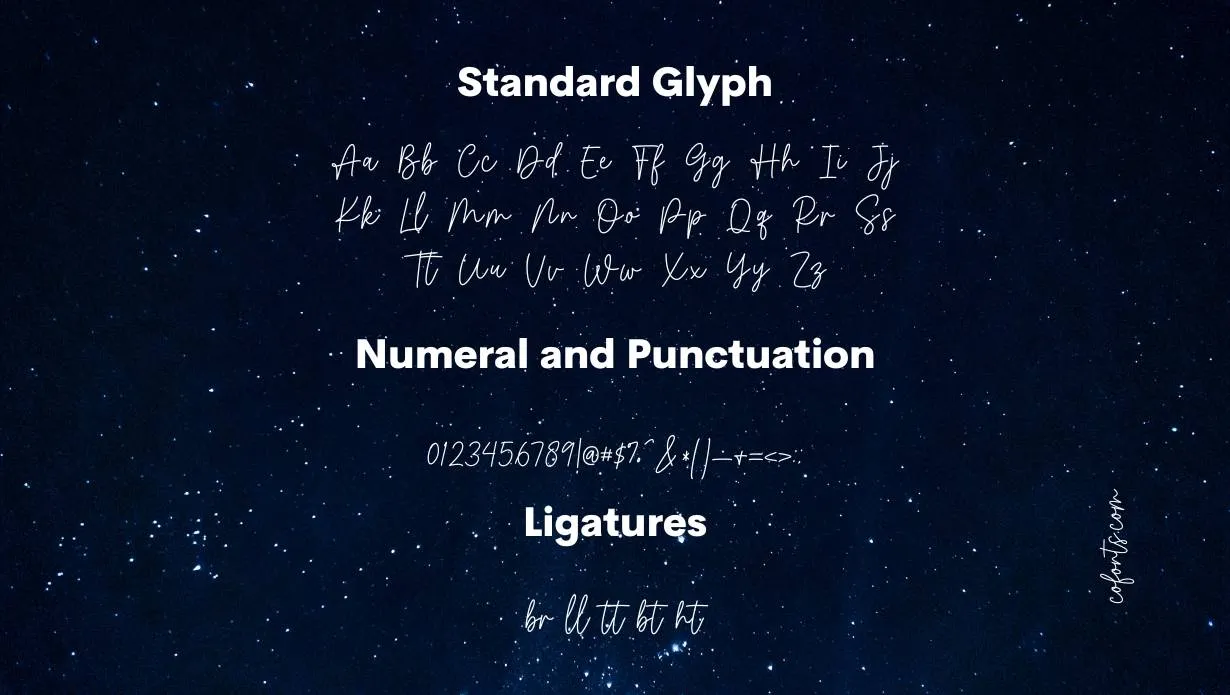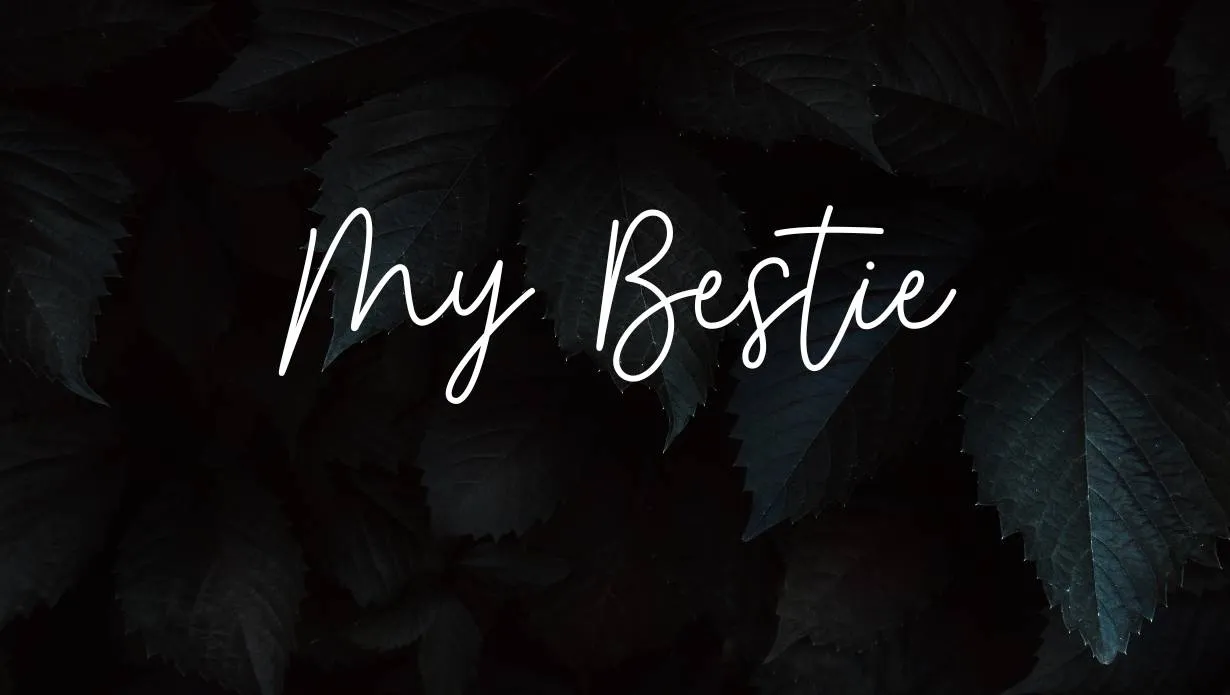
About My Bestie Font
My Bestie Font is a warm, casual handwritten script typeface with flowing, friendly letterforms that bring a personal, artistic feel to designs. Its natural, relaxed strokes make it ideal for projects like invitations, greeting cards, logos, social media graphics, and creative branding. The font’s informal character adds charm and personality to headlines and display text while remaining legible. My Bestie works well across both digital and print applications, giving designs an approachable and handcrafted aesthetic.